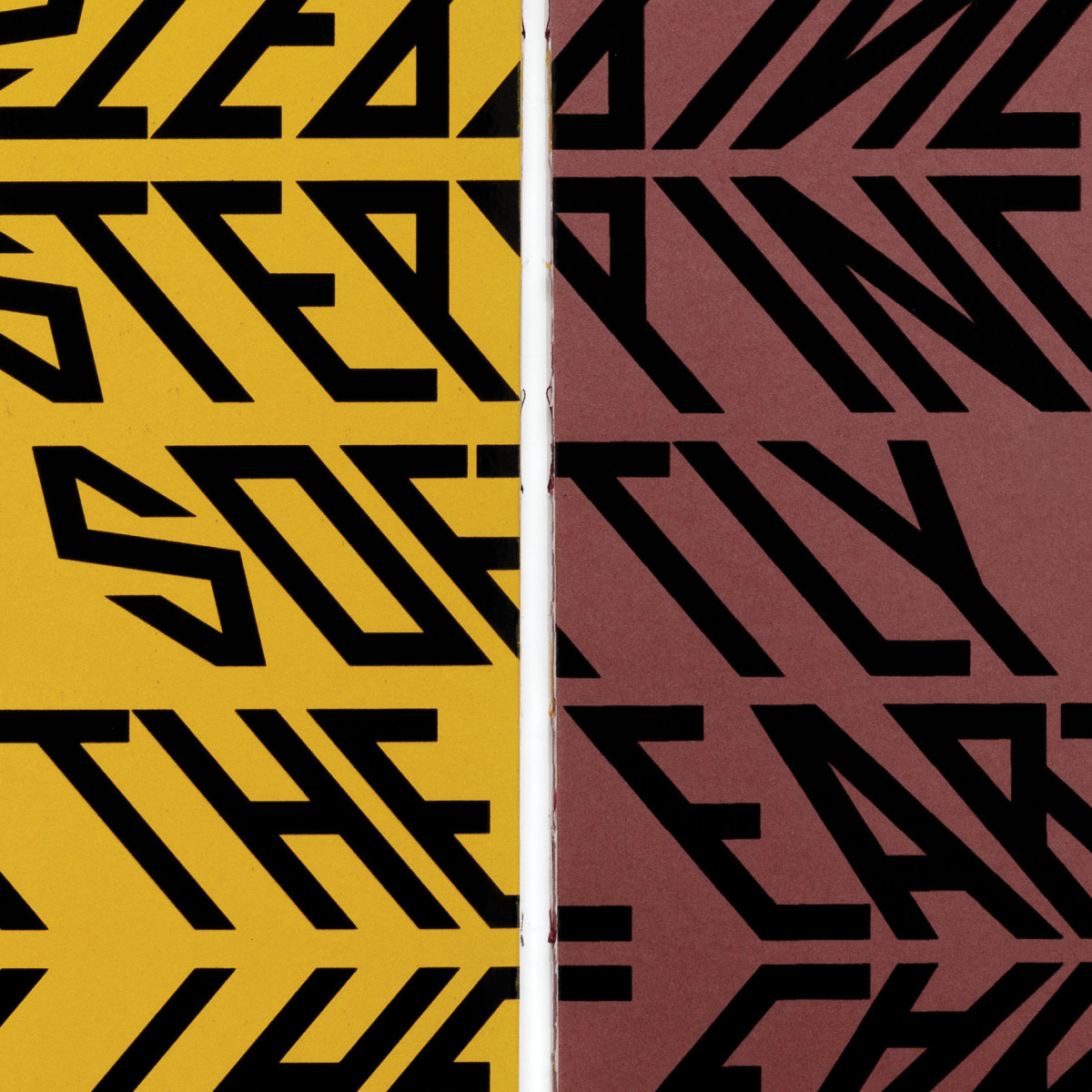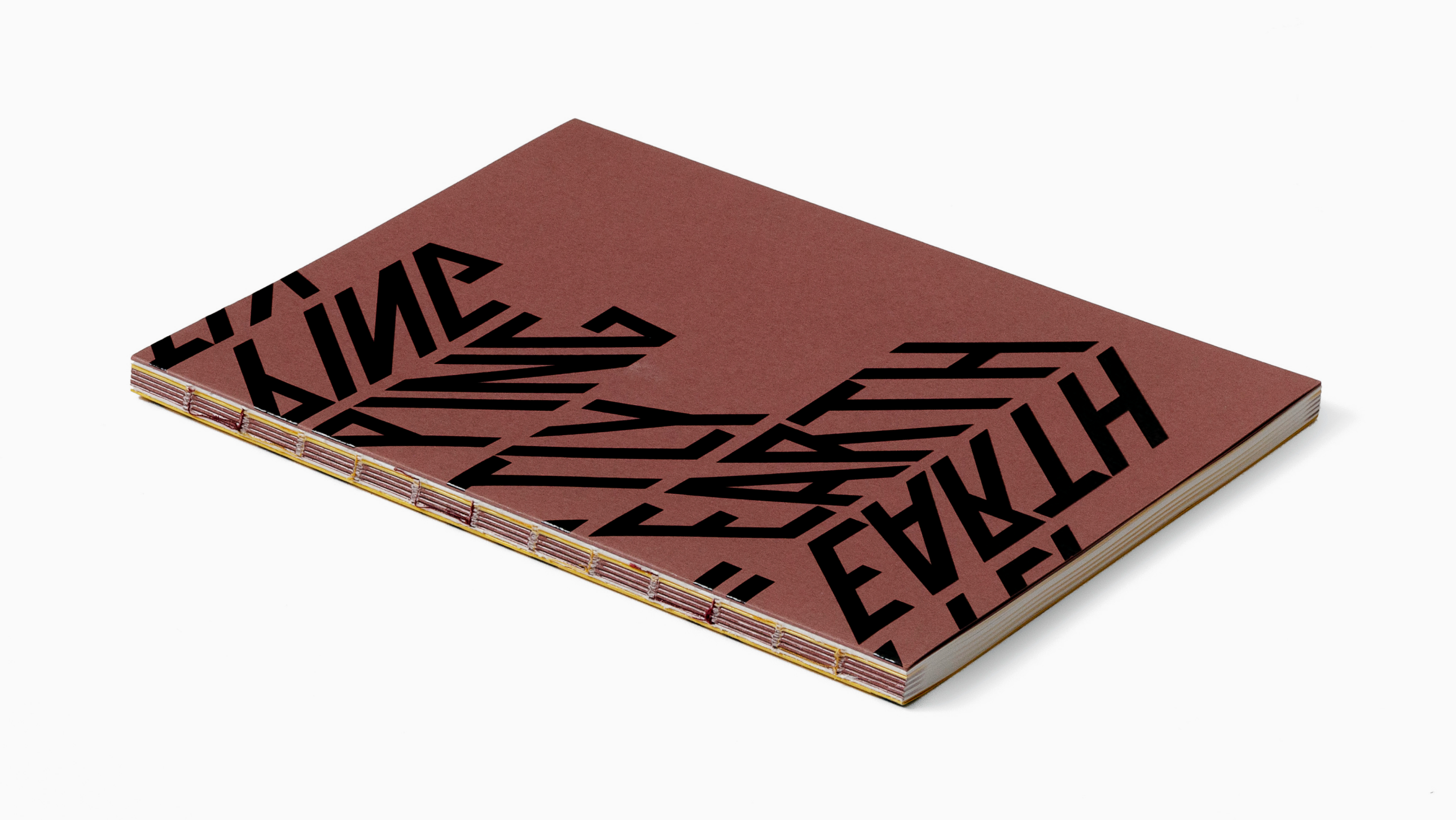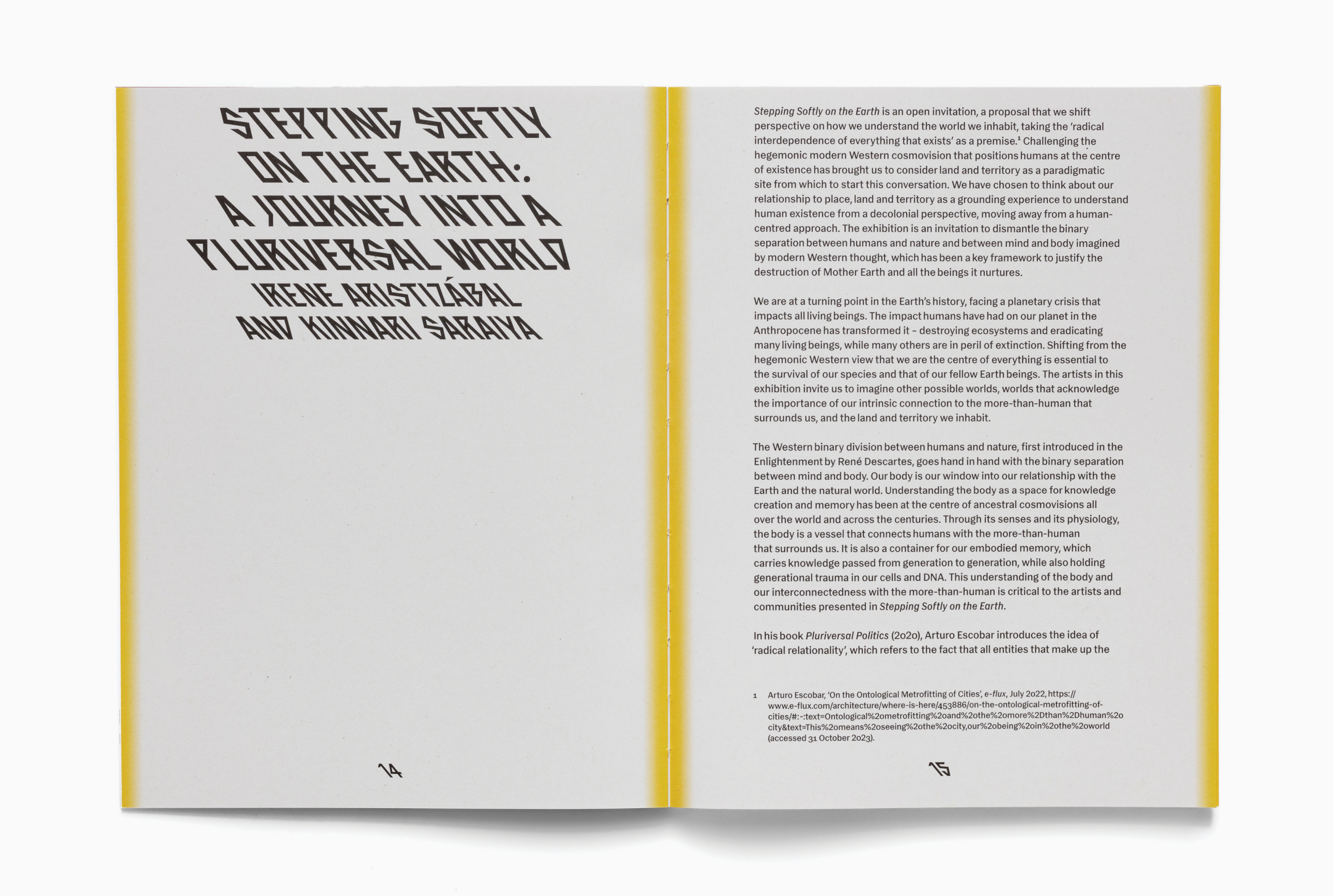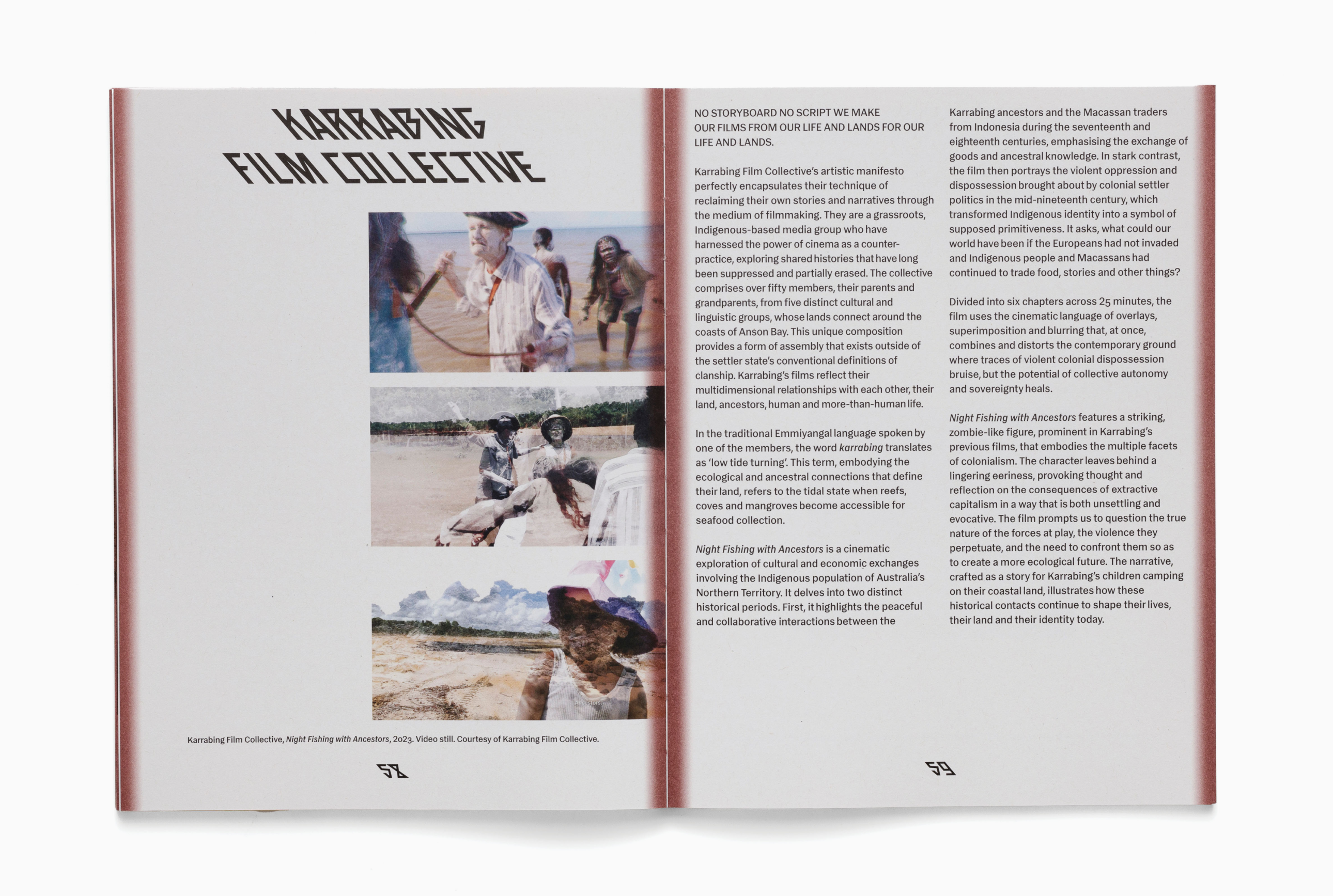
Stepping Softly on the Earth is an art show held in 2023 at the Northumbria University Gallery. The exhibition featured the work of 20 artists reflecting on human relationships with territories and borders from a decolonial perspective. The catalogue texts are set in Backslanted by CSTM Fonts and Gal Gothic by Daniel Sabino.
Backslanted is a series of reverse-contrasted fonts varying in angle, style, and weight. Three faces from the series are available at our type store — two sans serifs, Backslanted Regular and Backslanted Super, and Backslanted Script, each coming with a set of mathematical symbols, numerous alternates, and ligatures.